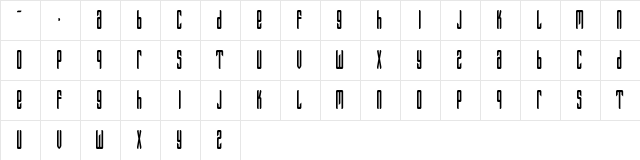
Fantazija Regular
Design Context for Fantazija Typeface
Fantazija is a composed and adaptable typeface that performs quietly and consistently across a wide range of design contexts.